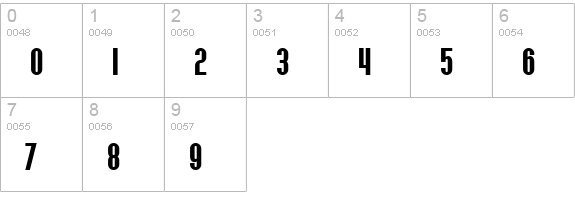
SF Willamette Bold Font Details
SF Willamette Bold is a strong, high-contrast variant in the SF typeface family \xE2\x80\x94 well suited to headlines, attention-grabbing titles, and strong calls-to-action.
SF Willamette Bold is a captivating and versatile font that effortlessly commands attention. With its bold and strong letterforms, this font exudes confidence and power, making it perfect for headlines, titles, and any design that needs to make a bold statement. Designed with precision and meticulous attention to detail, SF Willamette Bold offers a unique combination of elegance and strength. Each character is beautifully crafted, featuring clean lines and well-defined curves that create a sense of modern sophistication. What makes SF Willamette Bold even more appealing is that it is freely available to download at FontsMarket.com. This means that you can easily access and use this remarkable font for various creative projects, whether it's designing eye-catching posters, sleek logos, or visually stunning websites. The versatility of SF Willamette Bold extends beyond its captivating appearance. It is easily legible, even at smaller sizes, allowing you to maintain clarity and readability in your designs. This makes it an excellent choice for both print and digital media, ensuring that your message is effectively conveyed to your audience. Whether you're a professional designer or someone with a passion for typography, SF Willamette Bold is a font that should not be missed. Its bold and striking presence, coupled with its free availability, makes it an invaluable resource for creating impactful and visually appealing designs. Download SF Willamette Bold today and unlock the unlimited potential it holds for your creative endeavors.